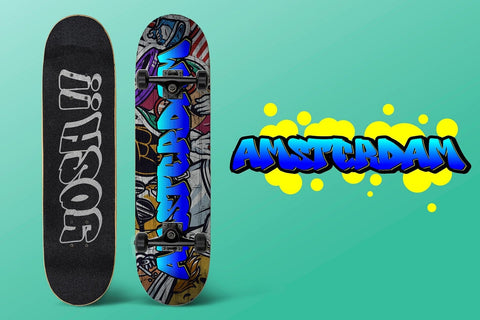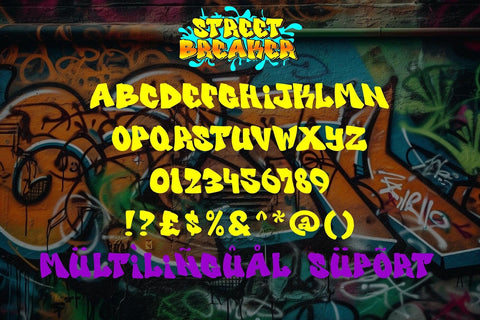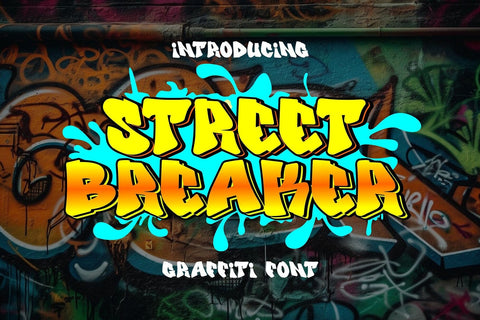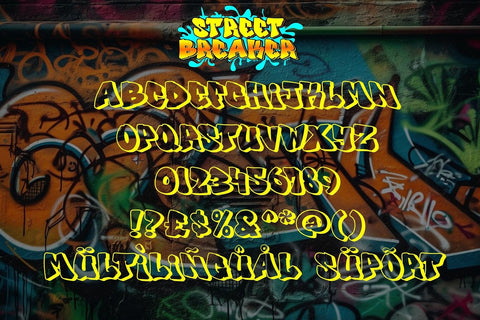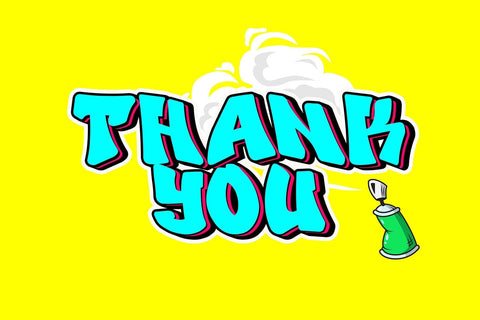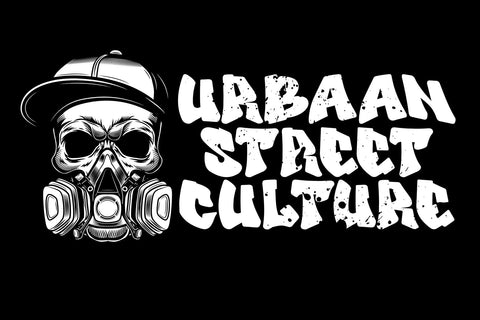
Street Breaker - Graffiti Font
Street Breaker is a graffiti font with sharp edges, making it a perfect choice for various street-themed projects. With its funky and dynamic style, this font adds an edgy and urban vibe to your designs. The sharp edges give it a bold and eye-catching look, ensuring your typography stands out with a distinct and rebellious flair. Bring a touch of street attitude to your projects with the Street Breaker font.
- Graffiti Characters looks